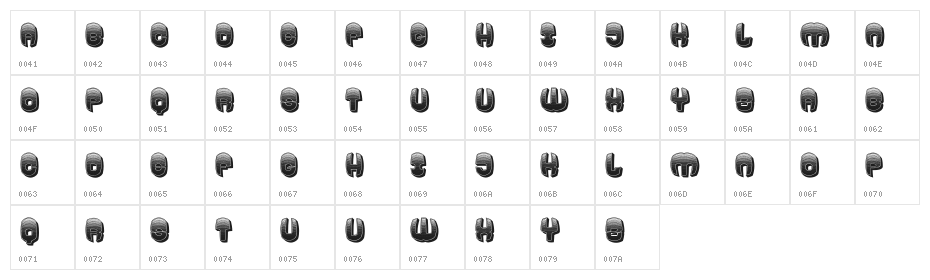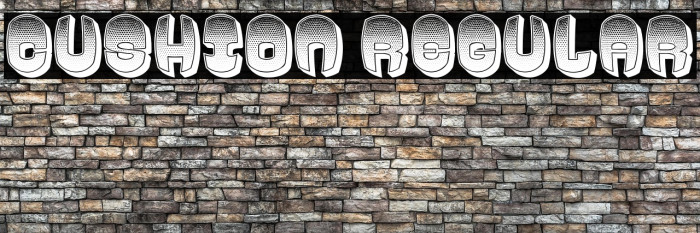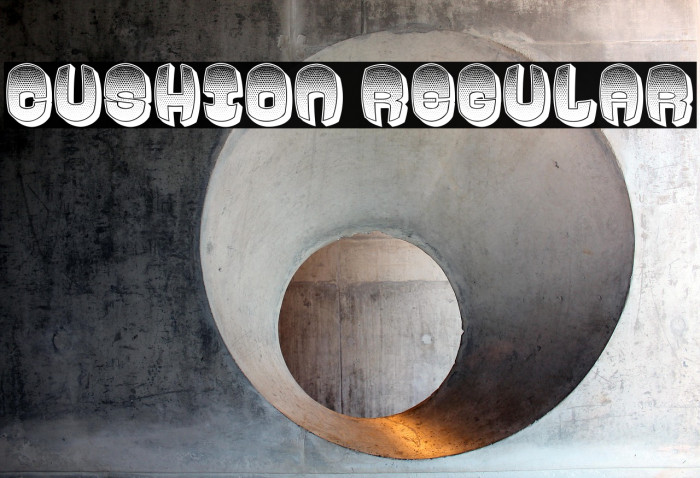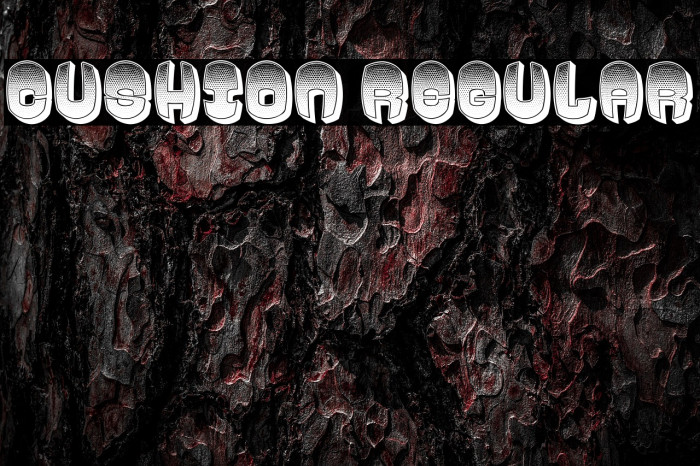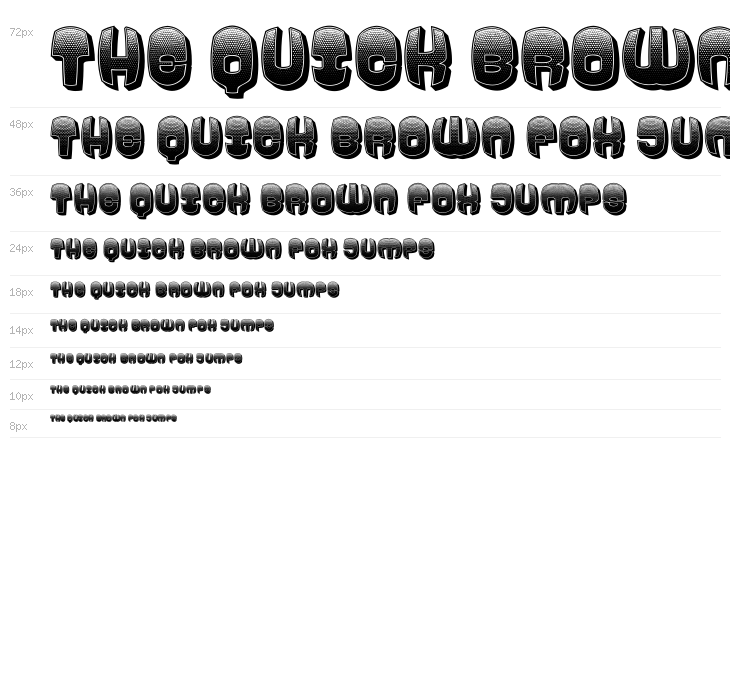
Cushion Regular Font
Cushion Regular Description
This font features a bold, three-dimensional appearance with a soft, cushion-like texture. The letters are rounded and have a playful, bubbly style that gives them a unique, eye-catching look. The shading and highlights create a sense of depth, making each character appear as if it is popping out of the page. This font is highly decorative, with a distinct retro vibe that can add a fun and whimsical touch to any design. The characters are evenly spaced, ensuring readability despite their intricate design. The font's playful nature makes it suitable for creative projects that require a touch of personality and flair.
| Proposed Projects | Ideal for children's book covers, playful branding, posters, and creative invitations. |